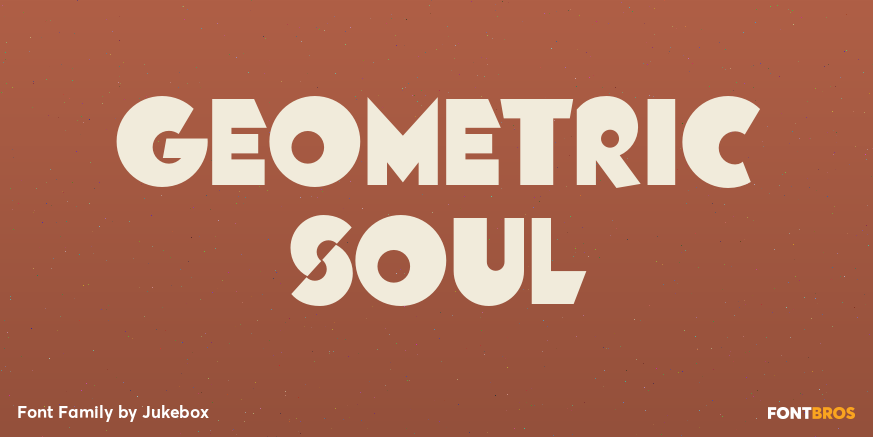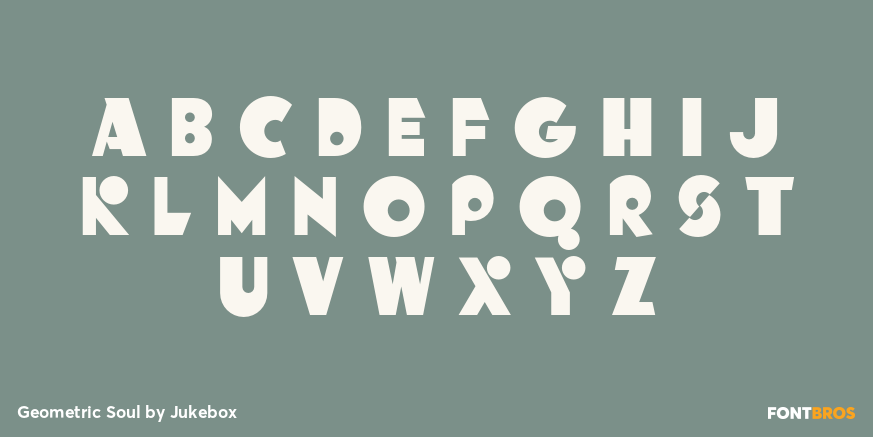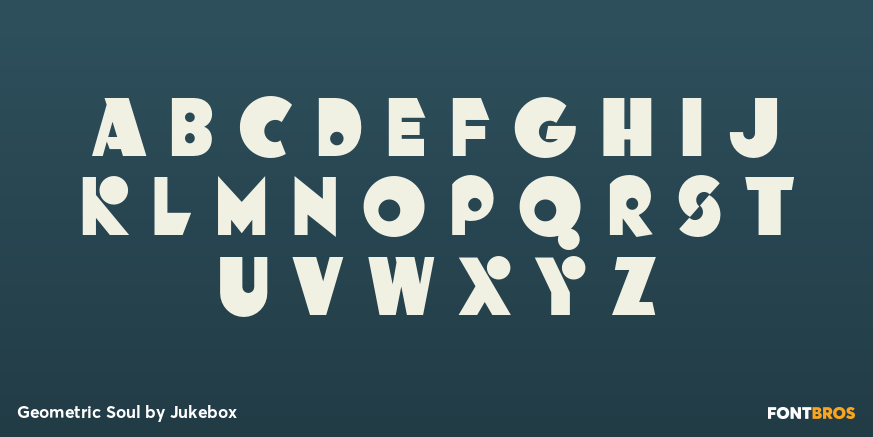
Geometric Soul
Font Family by Jukebox
Geometric Soul is an original Jukebox font that is constructed from basic shapes like circles and squares. I wanted to capture that unique look that letters have when you pare them down to their essential forms. Don ein the tradition of the geometrical typefaces of the 1970s like Babyteeth and Glaser Stencil, Geometric Soul is clean and modern with just a touch of humor. I particularly like the use of a single circle as the upper arm of the K, Y and X.